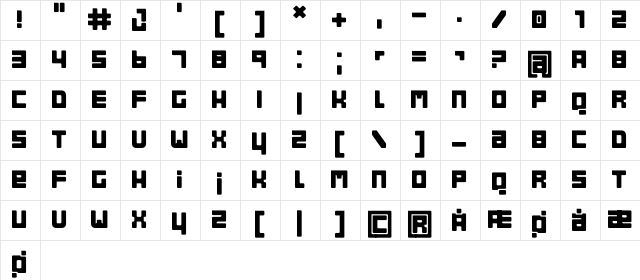
Bob Regular Free Font
Bob Regular
Design Context for Bob
Bob is a composed and adaptable typeface that performs quietly and consistently across a wide range of design contexts.